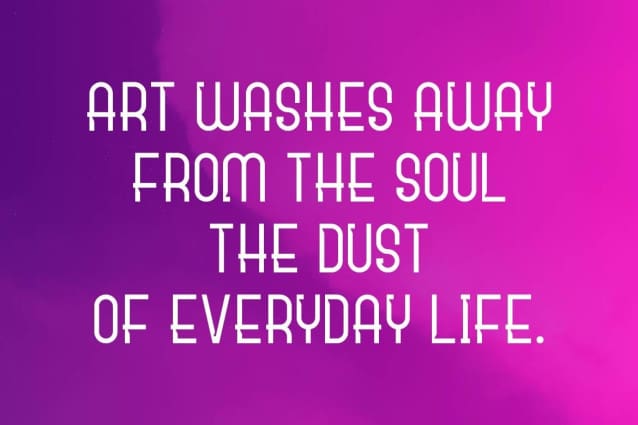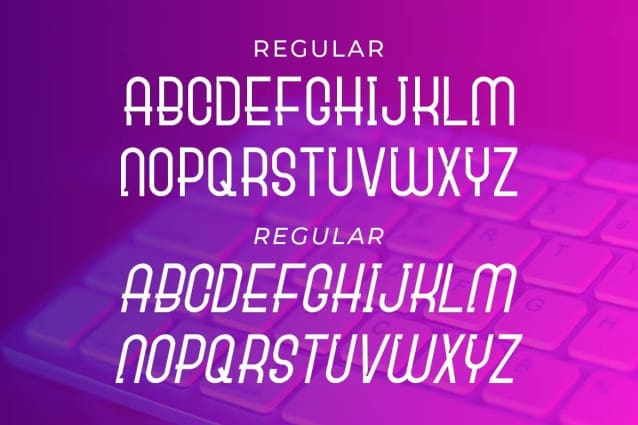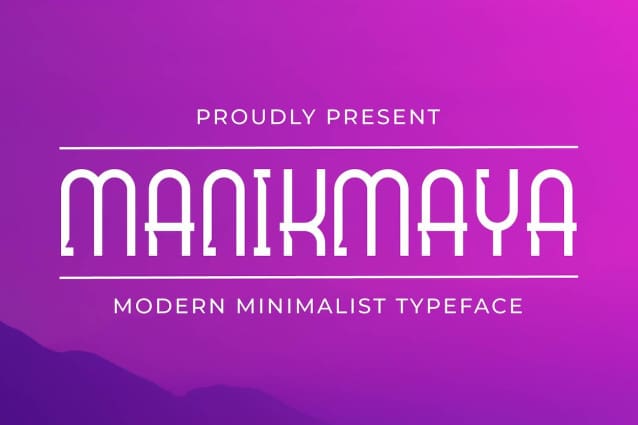
Manikmaya Font
Manikmaya Font – Minimalist Elegant Font. This font is perfect for posters, social media posts, branding, personal projects, and more.